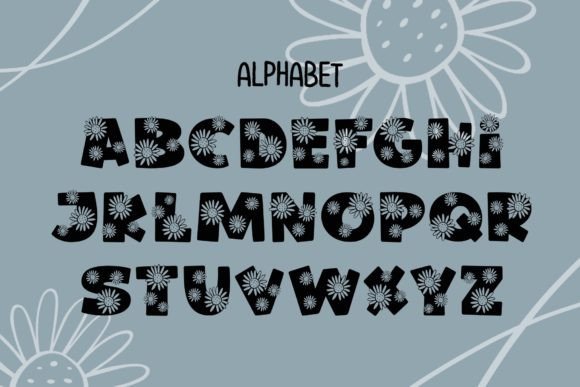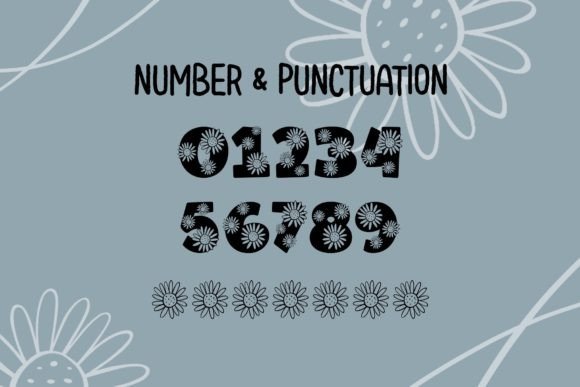
Introducing Call Me Daisy Font: The Perfect Addition to Your Design Arsenal
Are you a designer, crafter, or DIY enthusiast looking for a font that can elevate your projects to the next level? Look no further than Call Me Daisy Font! This lovely decorative font is the perfect fit for all of your logos, branding, social media, crafty DIY projects, and much more. In this article, we’ll dive into the world of Call Me Daisy Font and explore its features, benefits, and uses.
What is Call Me Daisy Font?
Call Me Daisy Font is a beautiful, hand-crafted decorative font that is designed to add a touch of elegance and whimsy to your designs. Its unique and intricate lettering makes it perfect for a wide range of applications, from logos and branding to social media graphics and crafty DIY projects.
Key Features of Call Me Daisy Font
• Unique and Intricate Lettering: Call Me Daisy Font features a distinctive and ornate lettering style that sets it apart from other fonts.
• Hand-Crafted with Love: This font is carefully crafted with attention to detail, ensuring that every letter and character is perfect.
• Highly Versatile: Call Me Daisy Font can be used for a wide range of applications, from logos and branding to social media graphics and crafty DIY projects.
• Easily Customizable: The font is easy to customize, allowing you to adjust the size, color, and style to fit your needs.
Benefits of Using Call Me Daisy Font
So, why should you choose Call Me Daisy Font for your next project? Here are just a few benefits of using this amazing font:
• Adds a Touch of Elegance: Call Me Daisy Font adds a touch of sophistication and elegance to your designs, making them stand out from the crowd.
• Increases Brand Recognition: By using a unique and memorable font like Call Me Daisy, you can increase brand recognition and build a strong visual identity.
• Perfect for DIY Projects: Whether you’re working on a crafty DIY project or a professional design project, Call Me Daisy Font is the perfect choice.
Uses for Call Me Daisy Font
Call Me Daisy Font is incredibly versatile and can be used for a wide range of applications, including:
• Logos and Branding: Create a unique and memorable logo that stands out from the crowd.
• Social Media Graphics: Add a touch of elegance to your social media graphics and make them stand out.
• Crafty DIY Projects: Use Call Me Daisy Font to add a personal touch to your crafty DIY projects, such as handmade cards, invitations, and decorations.
• Stationery and Invitations: Create beautiful stationery and invitations that showcase your personal style.
Tips for Using Call Me Daisy Font
Here are a few tips for getting the most out of Call Me Daisy Font:
• Experiment with Different Sizes and Colors: Don’t be afraid to experiment with different sizes and colors to find the perfect combination for your project.
• Pair with Other Fonts: Call Me Daisy Font pairs well with other fonts, so don’t be afraid to get creative and try out different combinations.
• Use for Headings and Titles: Call Me Daisy Font is perfect for headings and titles, adding a touch of elegance and sophistication to your designs.
In conclusion, Call Me Daisy Font is a beautiful and versatile decorative font that is perfect for designers, crafters, and DIY enthusiasts. With its unique and intricate lettering, highly customizable design, and wide range of uses, it’s the perfect addition to your design arsenal. Whether you’re working on a professional design project or a crafty DIY project, Call Me Daisy Font is sure to impress.